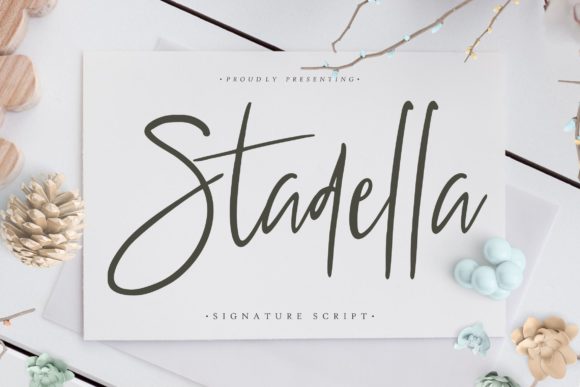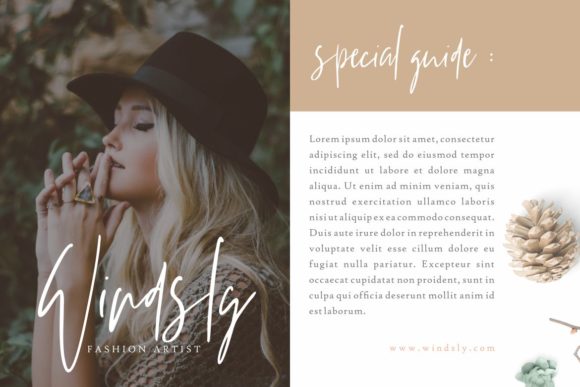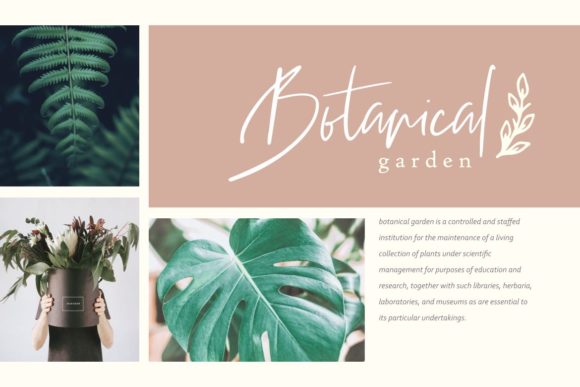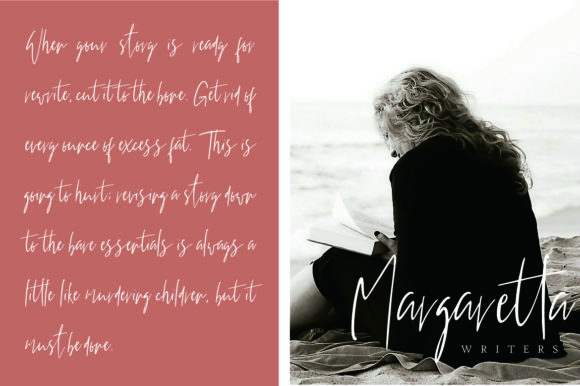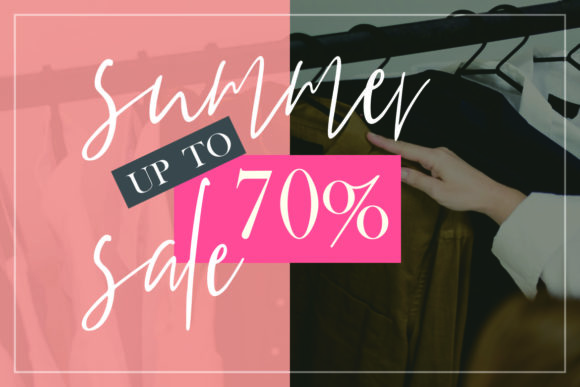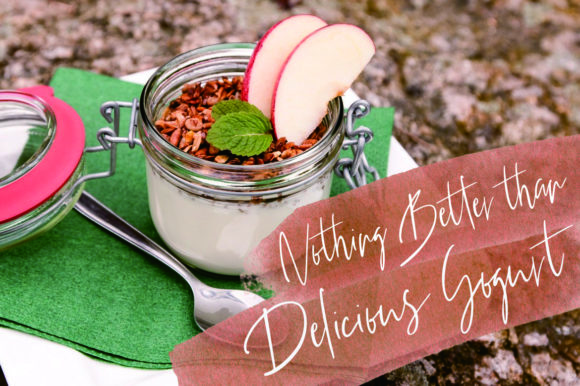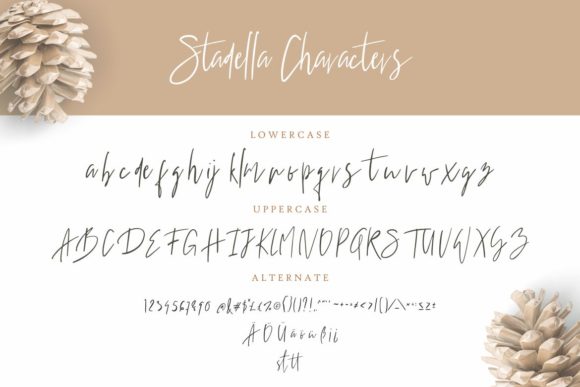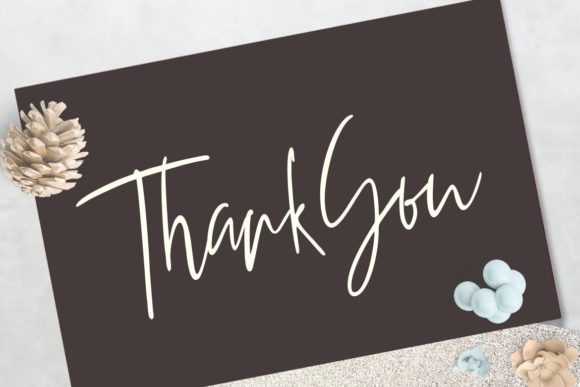
Stadella Font
About Stadella Font
Stadella is a free floating script with smooth and elegant curves. Use it to add a touch of sophistication to any design project!